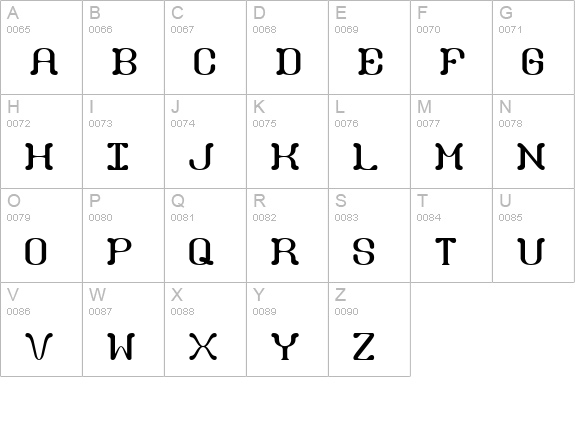
Draggle [over kerned] (BRK) Font Details
Introducing Draggle [over kerned] (BRK) font - a stunning display typeface that exudes elegance and modernity. With its unique design featuring stylish serifs and intricate details, Draggle [over kerned] (BRK) is the perfect choice for adding a touch of sophistication to your projects. This versatile font is ideal for a wide range of design applications, from branding and logo design to headlines and editorial layouts. The best part? Draggle [over kerned] (BRK) font is available for free download at FontsMarket.com. So, whether you're a seasoned designer looking to refresh your font library or a newcomer eager to experiment with new styles, Draggle [over kerned] (BRK) is the perfect addition to your collection. Don't miss out on this fantastic opportunity to enhance your designs with this beautiful and unique typeface. Download Draggle [over kerned] (BRK) today and elevate your creative projects to new heights!